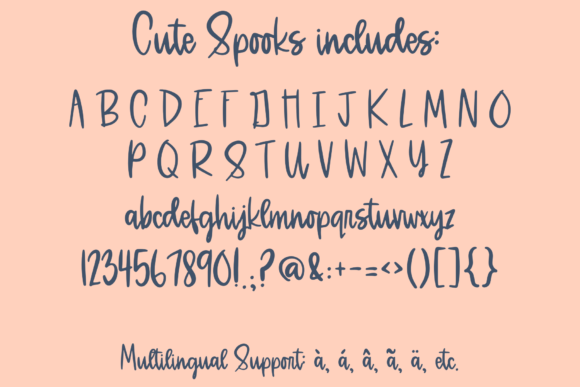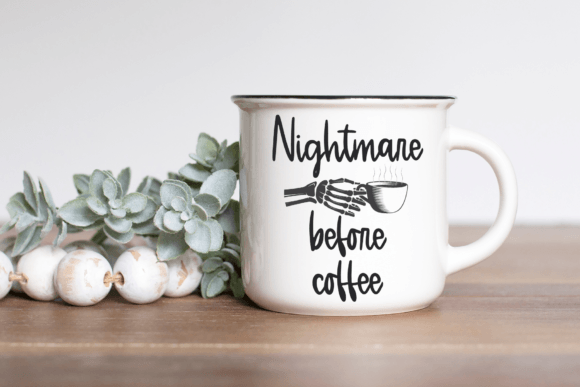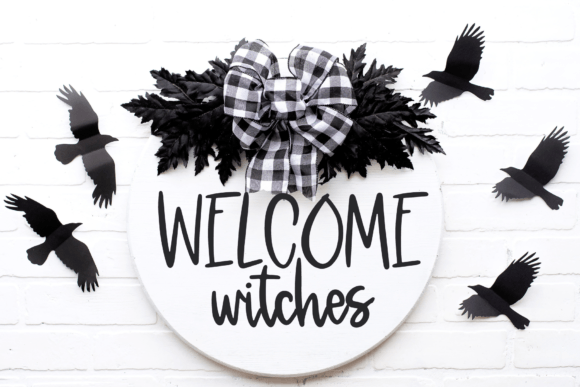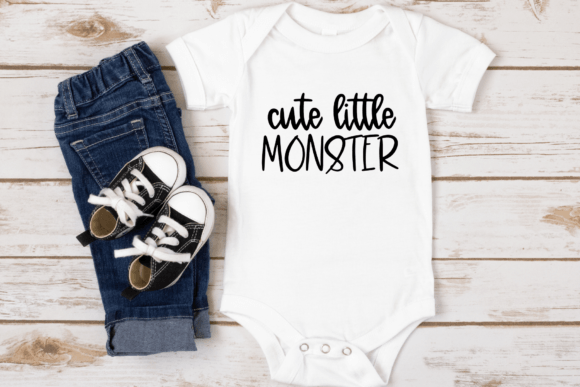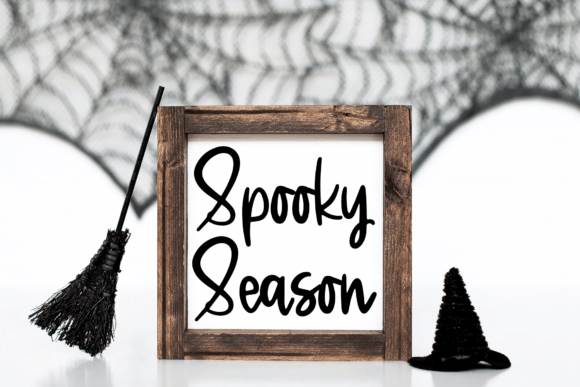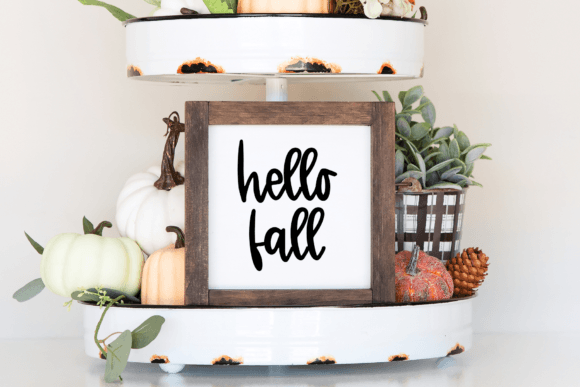
Introducing Cute Spooks: The Perfect Font for Your Creative Projects
I’ll never forget the time I was working on a Halloween-themed project for a client, and I just couldn’t find the right font to bring it all together. I had a vision of something playful, fun, and a little spooky, but everything I tried seemed to fall flat. That’s when I stumbled upon Cute Spooks, an energetic handwritten font that instantly captured the essence of the holiday. In this article, I’ll share my experience with Cute Spooks, and how it can become a valuable addition to your font collection.
A Personal Review of Cute Spooks
So, what makes Cute Spooks so special? Let’s dive into the good stuff! 😊
- ✨ Unique and playful style: Cute Spooks has a charming, handwritten look that’s perfect for adding a touch of personality to your projects.
- ✅ Highly versatile: This font is suitable for a wide range of creative projects, from Cricut designs and cards to scrapbooking and SVG files.
- 🎃 Halloween-themed: With its spooky yet cute vibe, Cute Spooks is ideal for Halloween-themed projects, but it can also be used for other occasions with a playful twist.
Now, I’m not going to sugarcoat it – every font has its quirks. Here are a few things to keep in mind:
- ⚠️ Some letters may be a bit inconsistent: As with any handwritten font, you might notice some variation in letter spacing and size. This can actually add to the charm, but it’s something to be aware of when using the font.
- 🤔 Limited use of OpenType features: While Cute Spooks does offer some basic OpenType features, it may not have the advanced features you’re used to with other fonts.
The Story Behind Cute Spooks
Cute Spooks was designed with the intention of creating a font that’s both playful and spooky. The designer wanted to capture the essence of Halloween in a way that’s fun and approachable, rather than scary or intimidating. The result is a font that’s perfect for crafters, designers, and creative hobbyists who want to add a touch of personality to their projects.